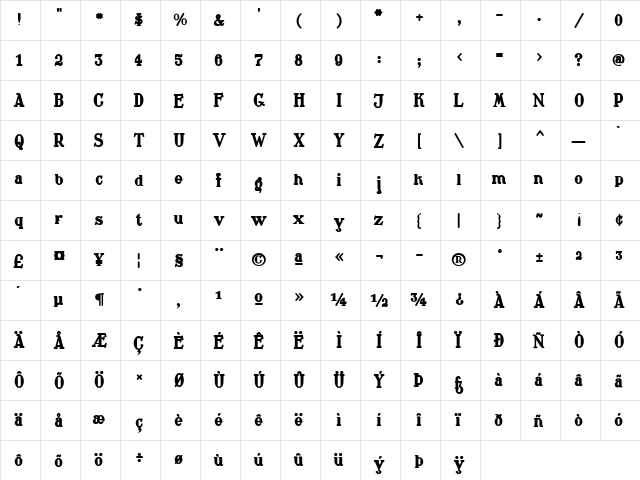
Waschkueche Grob Ultra
| Foundry | Peter Wiegel, CAT Webdesign Wolgast |
| Designer | Peter Wiegel |
Design Context for Waschkueche Grob Typeface
Waschkueche Grob takes a measured approach to typography — its balanced proportions and neutral character make it a reliable workhorse for both digital and print work.